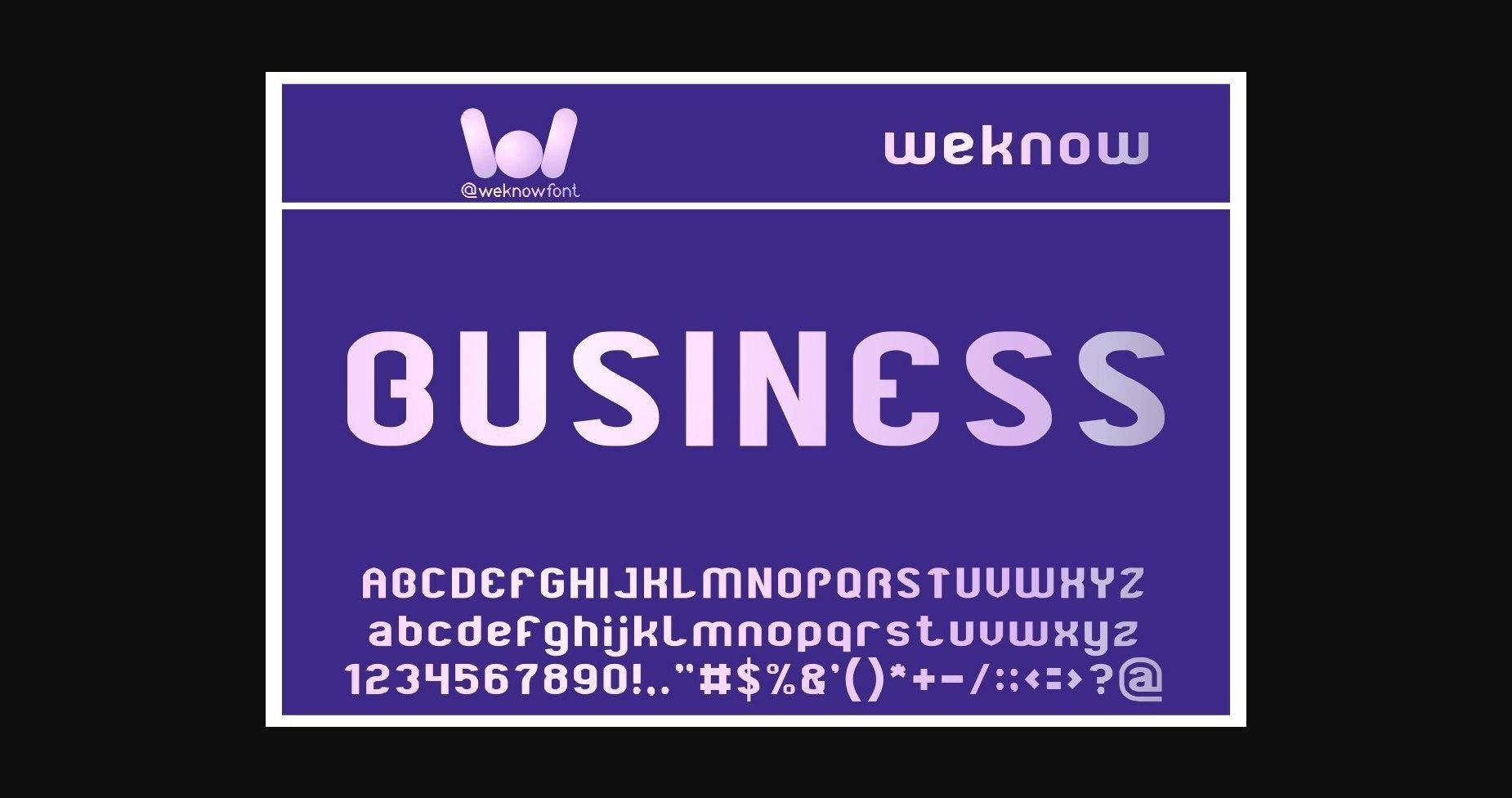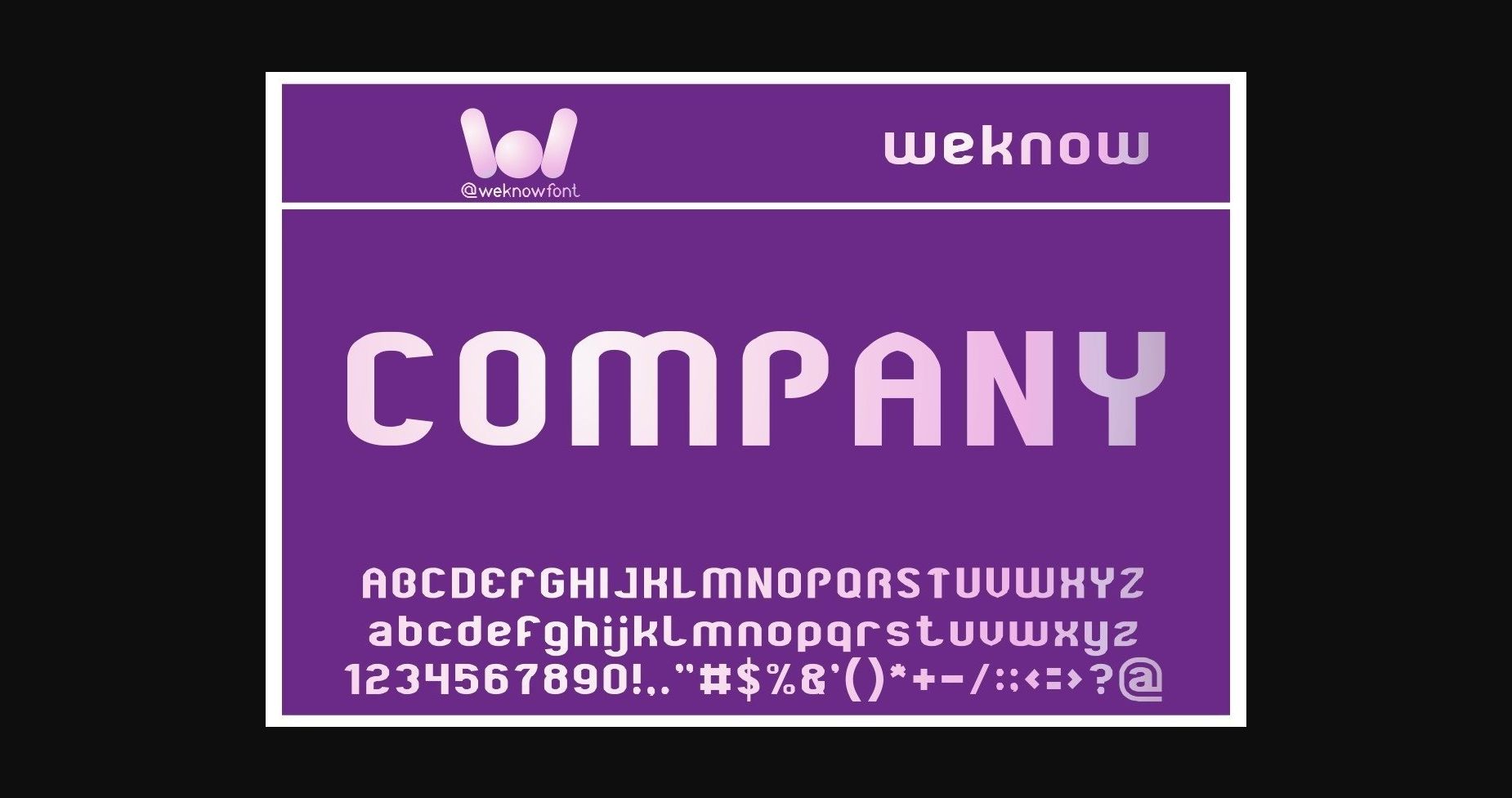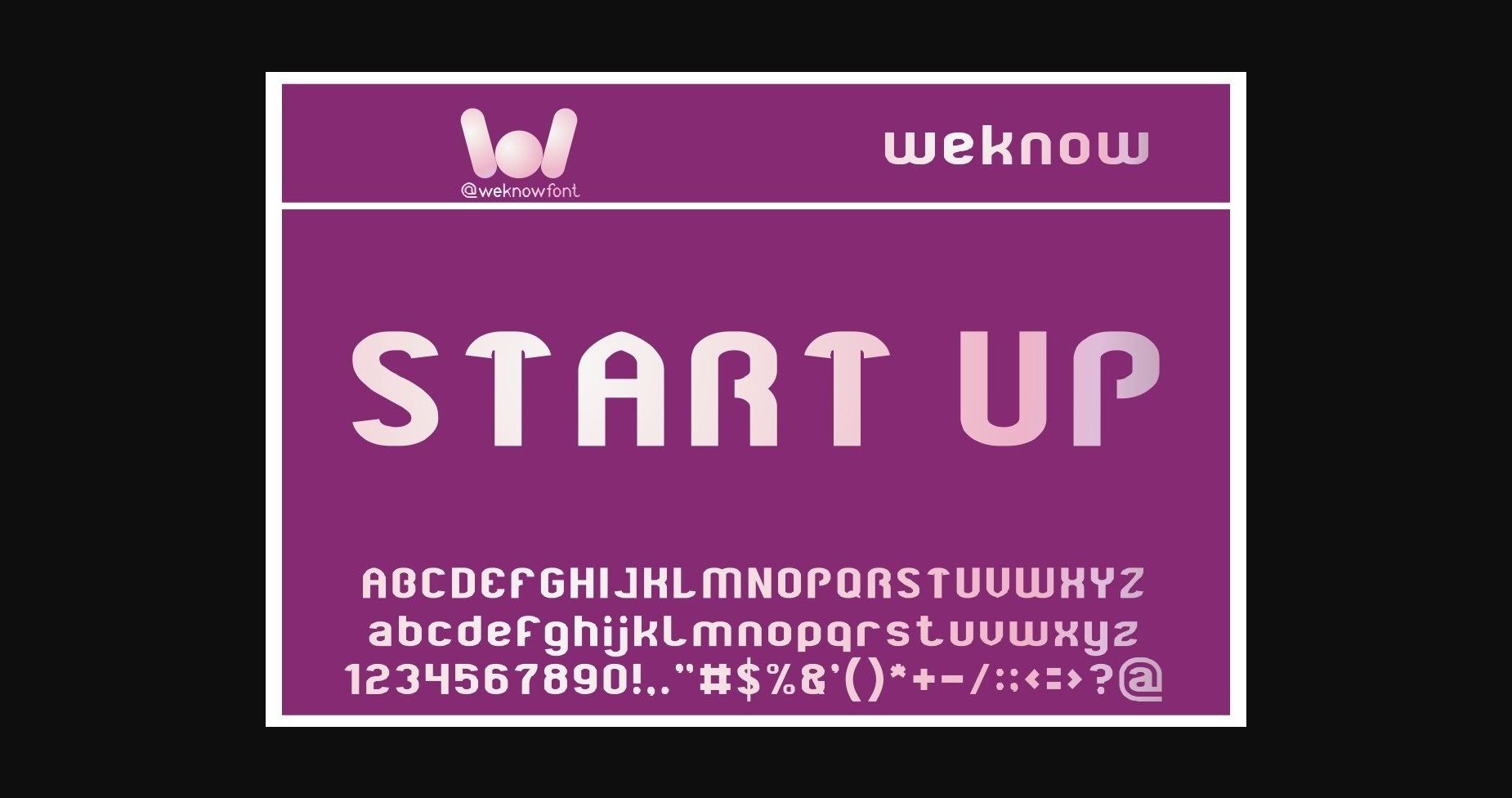
About Business Font
Business is a sans serif, basic various themes font, suit for logo, logotype, headline font, in corporate identity, brand identity, apparel industry, poster, music, movie, game, magazine, book, comic, cartoon, YouTube, Instagram, website, or any of your creative design project